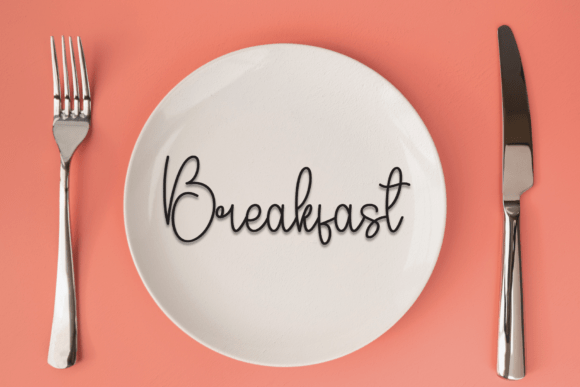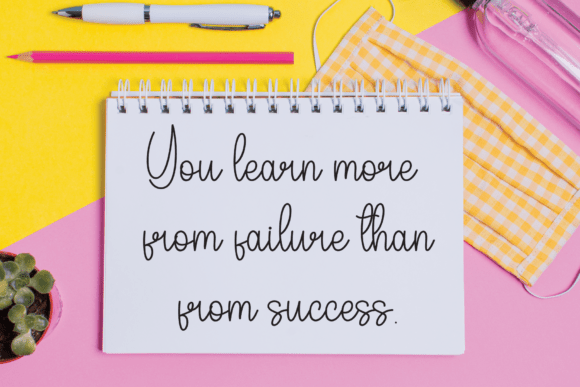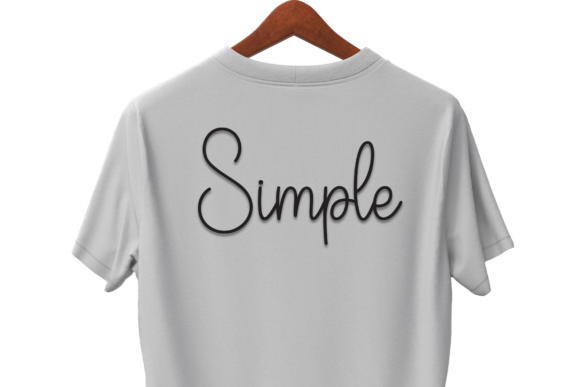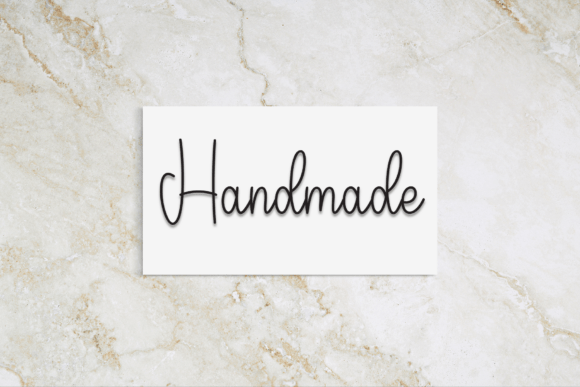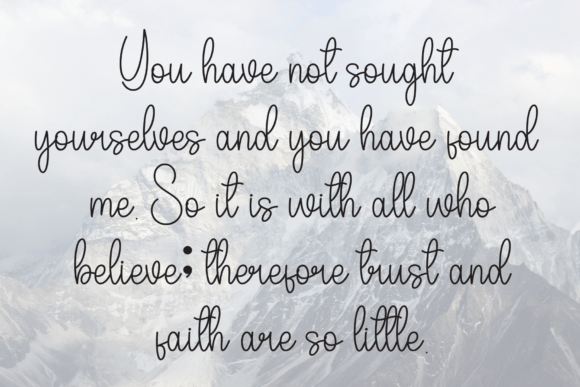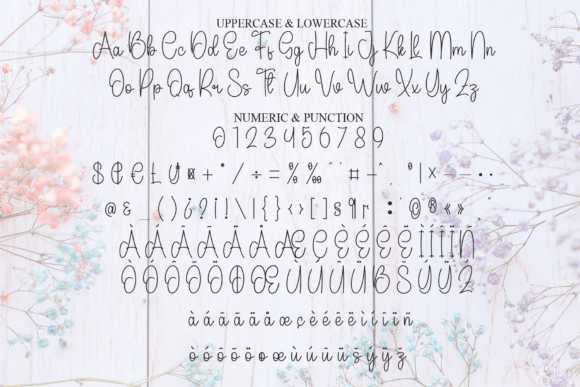
Introducing Charming Background Font: Elevate Your Designs with Elegance and Playfulness
In the world of typography, a charming background font can make all the difference in creating visually stunning designs that capture the essence of a brand or message. If you’re a designer or crafter looking for a stylish and elegant font to add a personal touch to your projects, look no further than Charming Background. This beautiful handwritten script font is designed to bring a sense of sophistication, warmth, and creativity to any design, making it perfect for invitations, branding, social media, and more.
The Charm of Charming Background Font
Charming Background is a stylish handwritten script font that exudes elegance and playfulness in every stroke. Its flowing curves and natural rhythm give it a unique and charming personality that sets it apart from other fonts. With its graceful design, Charming Background brings a sense of warmth and sophistication to any project, making it perfect for designers and crafters who want to add a personal touch to their work.
Key Features of Charming Background Font
- Elegant Handwritten Script: Charming Background features a beautiful handwritten script that captures the essence of elegance and playfulness.
- Flowing Curves and Natural Rhythm: The font’s flowing curves and natural rhythm give it a unique and charming personality.
- Perfect for Invitations and Branding: Charming Background is ideal for creating stunning invitations, branding materials, and social media graphics.
- Easy to Read and Versatile: The font is easy to read and versatile, making it perfect for a wide range of design projects.
Uses for Charming Background Font
Charming Background font is perfect for a variety of design projects, including:
- Invitations: Create stunning invitations for weddings, birthdays, and other special occasions.
- Branding: Use Charming Background to create a unique and memorable brand identity.
- Social Media Graphics: Add a personal touch to your social media graphics and make them stand out.
- Stationery and Packaging: Use Charming Background to create beautiful stationery and packaging designs.
Why Choose Charming Background Font?
With so many fonts available, why choose Charming Background? Here are just a few reasons:
- Unique and Charming: Charming Background is a unique and charming font that will set your designs apart.
- Elegant and Sophisticated: The font’s elegant and sophisticated design makes it perfect for high-end designs.
- Support for Multiple Languages: The font supports multiple languages, making it perfect for international designs.
Tips for Using Charming Background Font
Here are a few tips for using Charming Background font:
- Use it as a Title Font: Charming Background is perfect for use as a title font, adding a touch of elegance and sophistication to your designs.
- Pair it with Other Fonts: Experiment with pairing Charming Background with other fonts to create a unique and interesting design.
- Use it for Headings and Subheadings: Use Charming Background for headings and subheadings to add a touch of elegance and sophistication to your designs.